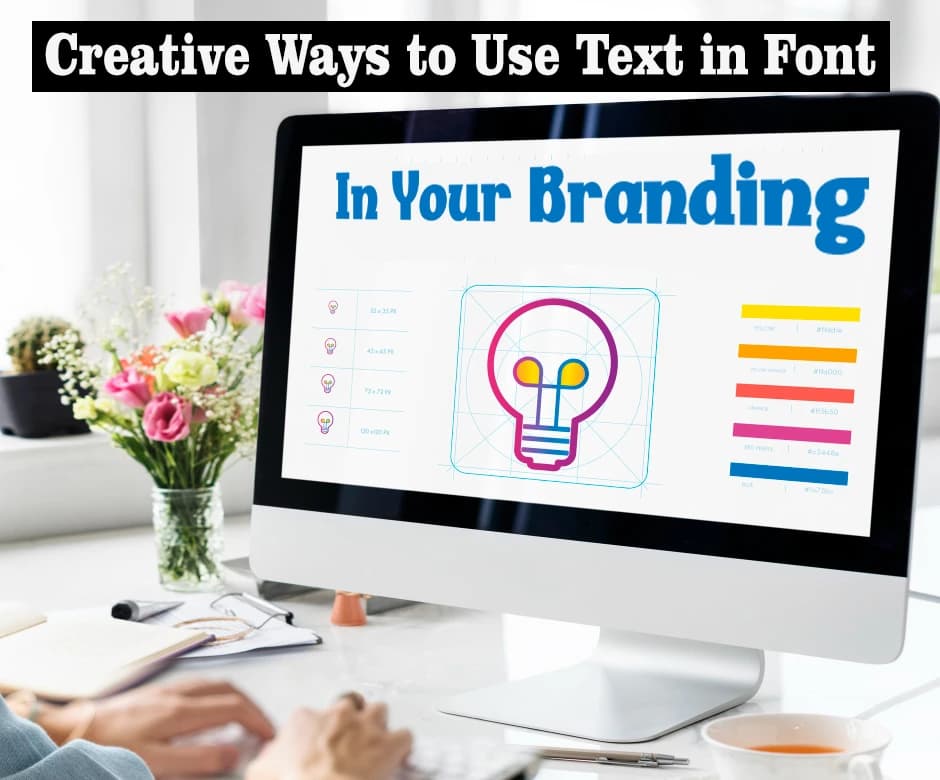
In branding, every detail communicates your identity, and typography is one of the most powerful tools at your disposal. Fonts do more than convey information. They evoke emotion, establish tone, and create a memorable visual personality for your brand.
Creative use of text can turn ordinary words into striking design elements that capture attention and leave a lasting impression.
From custom typefaces to playful layouts, there are countless ways to integrate text into branding beyond standard logos and headlines. This article explores innovative techniques to make your typography not just readable, but a core part of your brand’s identity.
Creating a custom typeface allows your brand to stand out with a unique visual voice. Unlike standard fonts, a custom font is tailored specifically to reflect your brand’s personality, values, and tone.
It can be playful, professional, elegant, or futuristic, depending on what your brand wants to communicate. Custom typography ensures that every piece of text, whether on packaging, social media, or advertising, feels intentional and part of a cohesive identity.
Integrating text into your logo is one of the most straightforward yet impactful ways to use typography in branding. Wordmarks rely entirely on font choice, spacing, and styling to convey identity, making the text itself the centerpiece of the brand.
A well-crafted wordmark is versatile, memorable, and instantly recognizable, often becoming the face of the brand.
This strategy works particularly well for brands that want to emphasize their name and establish a strong verbal identity without relying heavily on symbols or icons.
Text doesn’t have to exist independently. It can interact with visual elements to create depth and narrative. Overlaying text on images or patterns not only reinforces your message but also enhances the emotional impact of visuals.
This technique works especially well for brands that use storytelling in marketing, such as lifestyle, fashion, or travel brands. Proper execution ensures that the text complements the image rather than competing with it, creating a harmonious design that draws the eye naturally.
Typography can move beyond communication to become an actual visual element within your branding. Letters and words can be manipulated to create shapes, textures, and patterns, transforming text into artwork that reinforces your brand identity.
This approach allows designers to add creativity without relying solely on illustrations or photos. When done thoughtfully, text-as-design can become iconic, instantly recognizable, and even a central feature of your brand’s visual language.
In today’s digital landscape, text is not limited to static presentation. Dynamic typography, through animation, interaction, or motion, makes your brand feel modern, energetic, and engaging.
Animated text can emphasize key messages, guide viewers’ attention, or create a sense of personality and motion in your digital content.
This approach is particularly effective in social media marketing, web design, and video content, where movement naturally attracts attention.
Using multiple fonts in a single design can create hierarchy, visual interest, and personality. When fonts are combined thoughtfully, they guide the viewer’s eye, highlight key information, and convey tone effectively.
This technique allows designers to balance playfulness with professionalism or boldness with subtlety, depending on the brand’s goals. The key is harmony. Choosing fonts that complement rather than compete with each other ensures a cohesive and polished look.
Manipulating the size, orientation, or perspective of text can instantly create visual impact. Oversized text or text that follows a unique perspective draws attention and adds energy to your design.
This technique is particularly effective in advertising, posters, and social media campaigns where grabbing attention quickly is essential. It also allows designers to create depth, movement, and focal points without adding extra visual elements, keeping the design clean yet powerful.
The way a brand uses text speaks volumes about its personality and values. Creative typography, from custom fonts to dynamic layouts, can turn simple words into striking design elements that engage and inspire.
By experimenting with scale, style, and movement, brands can craft a visual identity that is both memorable and distinctive, ensuring every message not only informs but also leaves a lasting impression on their audience.
Typography communicates your brand’s personality, tone, and values visually. It helps create recognition and can make your brand memorable at a glance.
Absolutely. While creative fonts are important, your text must remain clear and legible. Readability ensures your message reaches your audience effectively.